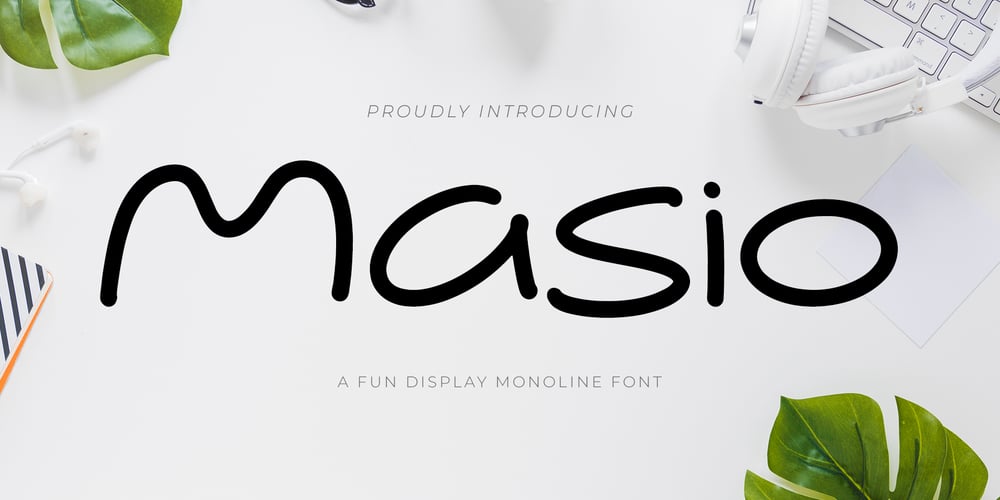
Masio Font Family was designed by Roisatul Azizah and published by IbraCreative. Masio contains 1 styles and family package options. Masio is a vibrant and captivating display font that embodies the essence of fun and excitement. Its bold and exaggerated letterforms command attention and make a powerful visual statement. With its playful curves and dynamic angles, Masio injects a sense of energy and liveliness into any design. The exaggerated serifs and unique character shapes add a touch of whimsy and personality, making Masio an ideal choice for headlines, logos, and eye-catching signage. Whether used in print or digital mediums, Masio captivates viewers with its exuberant charm and creates a memorable and enjoyable visual experience.